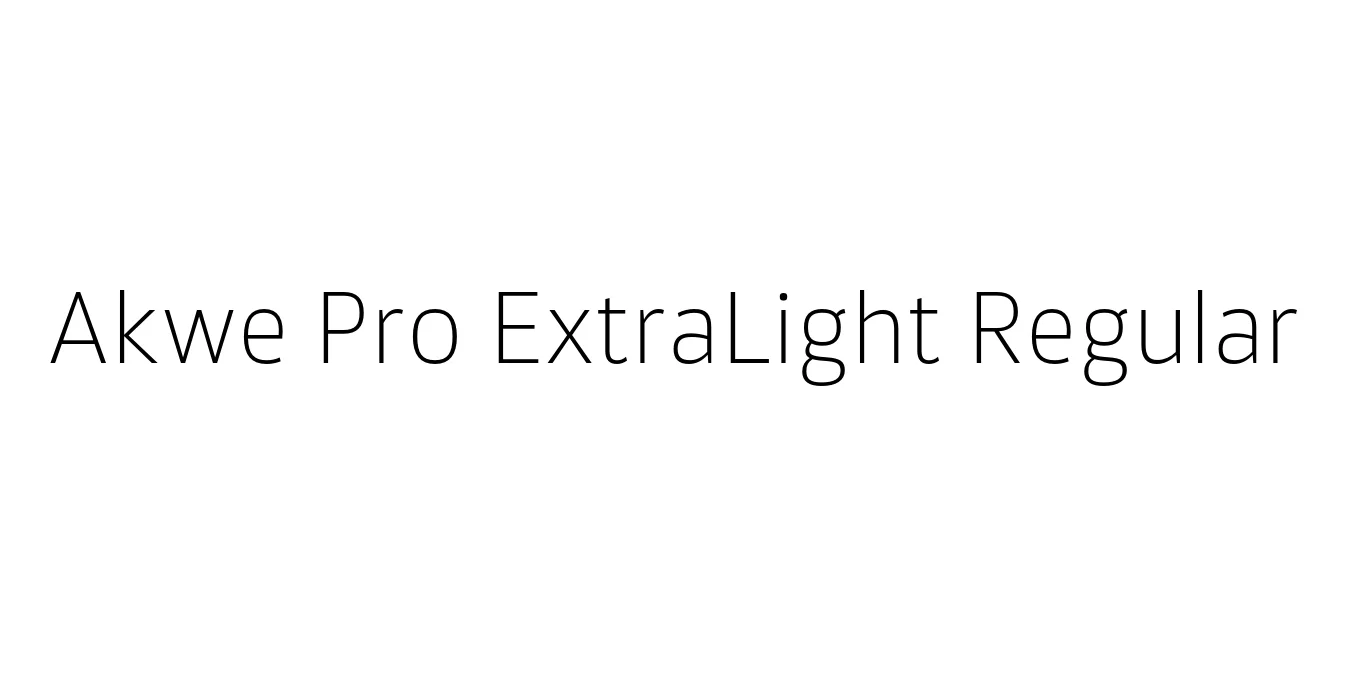
Akwe Pro ExtraLight Regular
Designed by Jan Tonellato
Akwe Pro ExtraLight Regular is a sophisticated sans-serif typeface designed by Jan Tonellato. Part of the expansive Akwe Pro family, this specific weight emphasizes elegance and modern minimalism. It is characterized by its clean lines, generous x-height, and open apertures, which ensure that the font maintains its structural integrity and readability despite its delicate stroke width.
The design of Akwe Pro successfully bridges the gap between geometric precision and humanist warmth. This makes the ExtraLight variant an excellent choice for designers looking to convey a sense of high-end quality and contemporary style. Whether used in digital interfaces or high-quality print editorial, it offers a refined aesthetic that stands out in professional environments.
Akwe Pro ExtraLight Regular Best Uses
Ideal for clean, high-end mobile apps and website UI elements.
Excellent for sophisticated magazine headlines and minimalist layouts.
Perfect for luxury branding and modern logo designs.